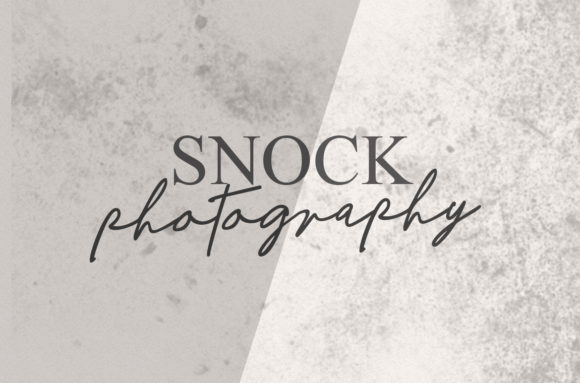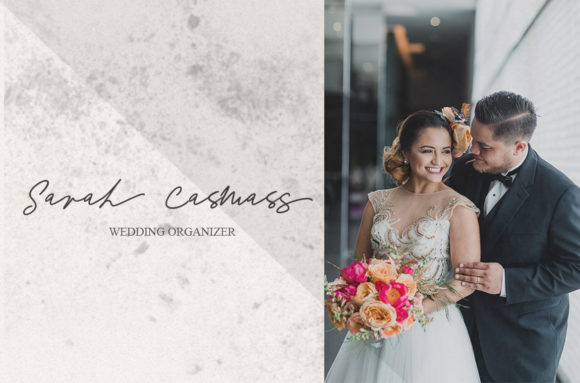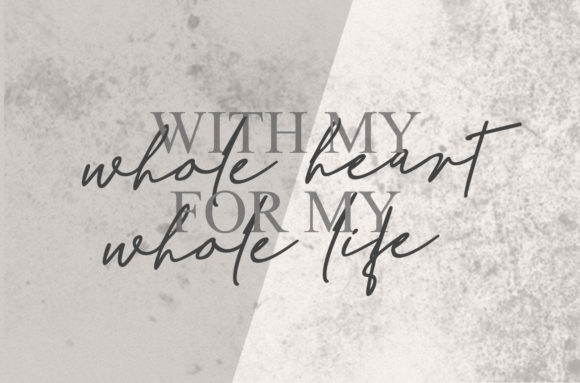
Introduction to Richland Font
Have you ever stared at a blank page, trying to bring your creative vision to life, only to find yourself stuck on the perfect font? That’s where the beautiful Richland Font comes in – a high-quality, elegant signature font designed to elevate your designs and make them truly unforgettable.
Imagine a font that’s perfect for everything from wedding invitations to magazine covers, and business cards to quotes and posters. With its natural, transparent background, the Richland Font is a versatile design resource that can help you bring your creative project to life in a way that’s both personal and professional.
Key Features of Richland Font
- High-quality font with a transparent background, ideal for creative projects and design resources.
- This font features a unique, modern design with a clean and minimalist aesthetic.
- With over 100 glyphs, Richland Font supports a wide range of languages, including Latin, Cyrillic, and Greek alphabets.
Honest Review: Richland Font
I recently stumbled upon the Richland Font and I must say it’s been a game-changer for my design projects. As a designer, I’m always on the lookout for high-quality fonts that can elevate my work, and this one definitely fits the bill.
- ✨ High-quality typography: The Richland Font is crisp, clean, and has a beautiful texture that makes it perfect for creative projects.
While the Richland Font is a fantastic addition to any design resource, there are a few limitations I’ve noticed. For instance, it may not be suitable for very small text sizes, and the font family could be more extensive.
Overall, I’m thoroughly impressed with the Richland Font. Its high quality, transparent background, and free download make it an invaluable asset for any designer working on creative projects. I’d highly recommend it to anyone looking for a reliable and versatile font.
The Richland Font is ideal for various design projects, including business cards, brochures, social media graphics, and website content. Its high-quality design and transparent background make it a popular choice among designers and creatives.